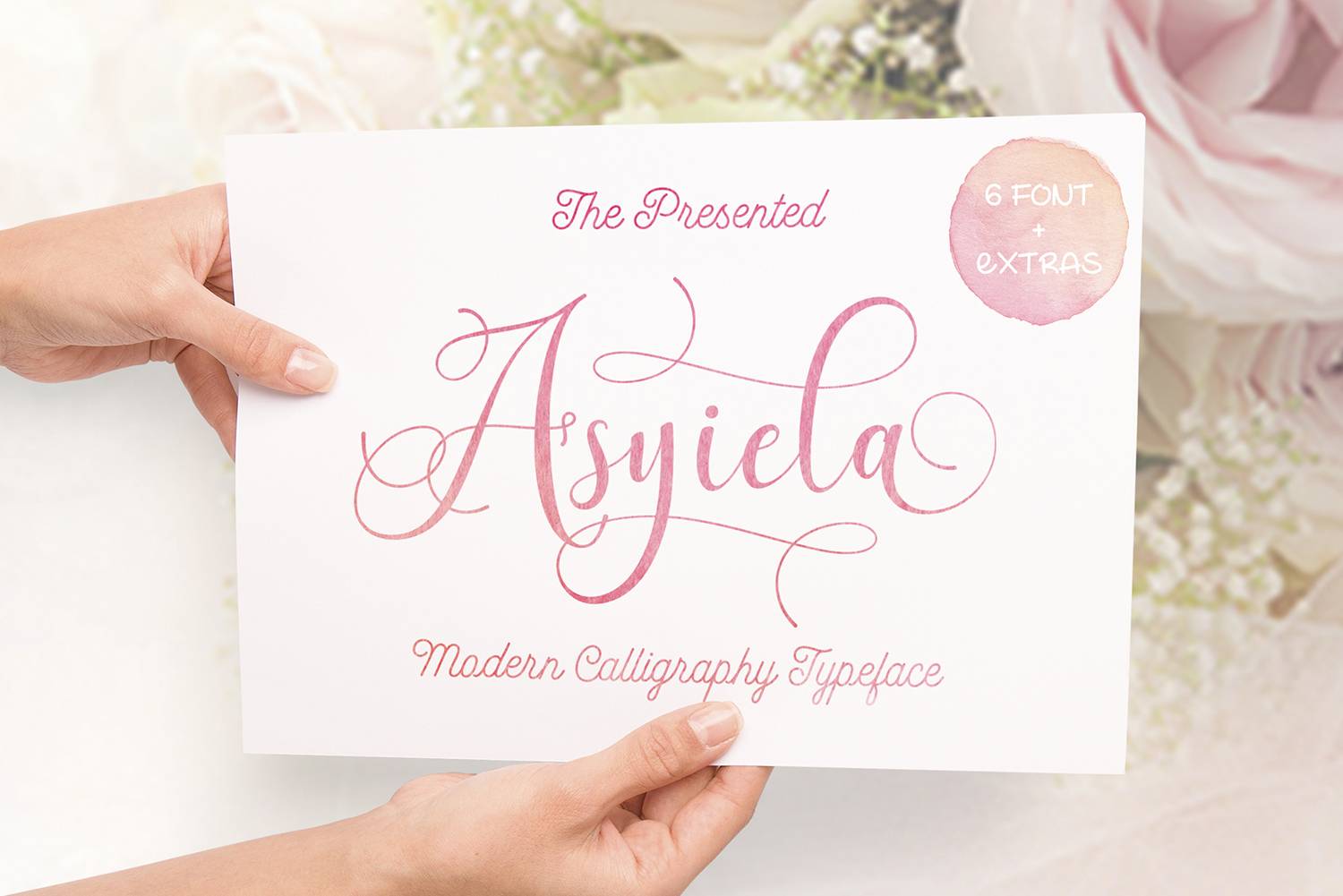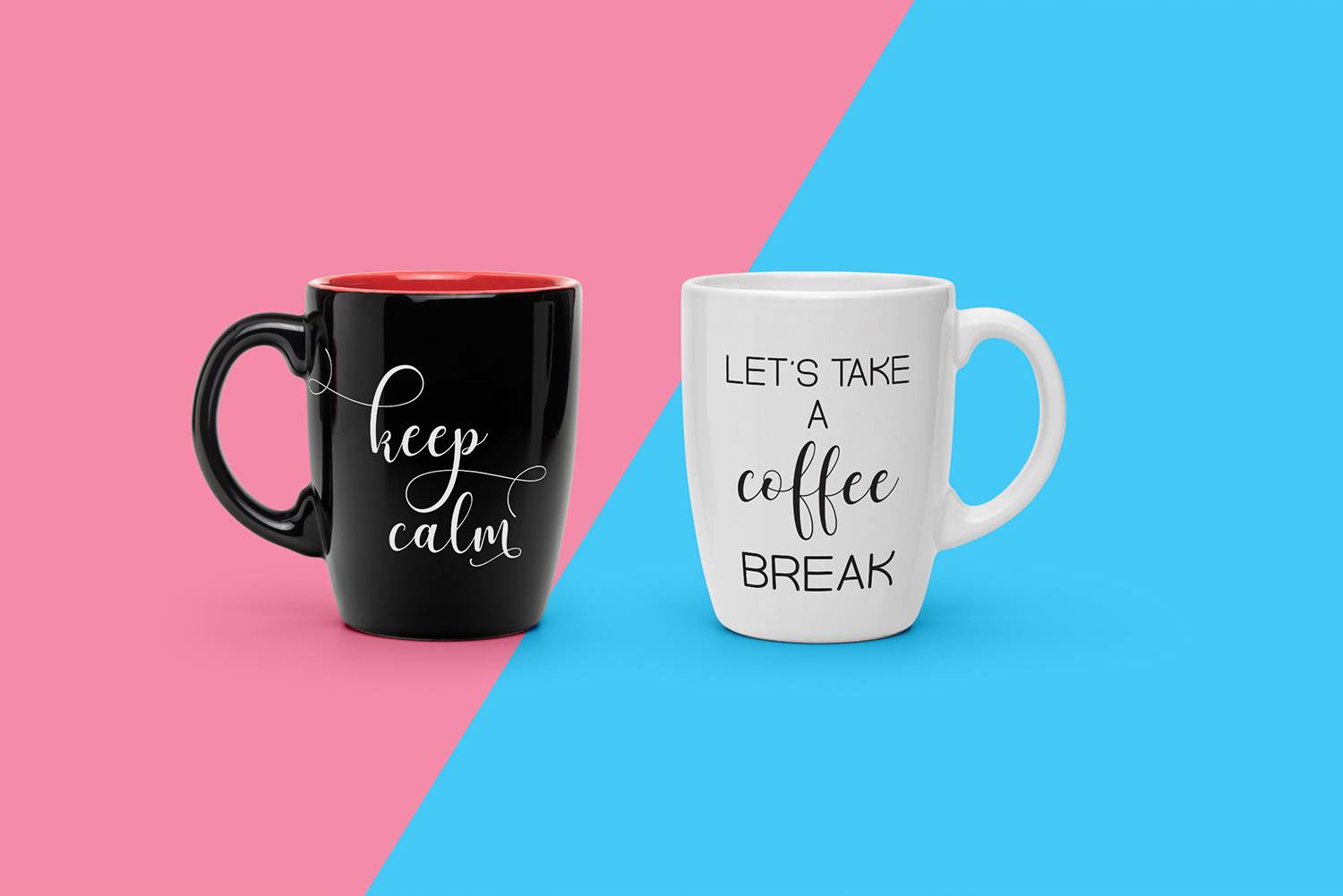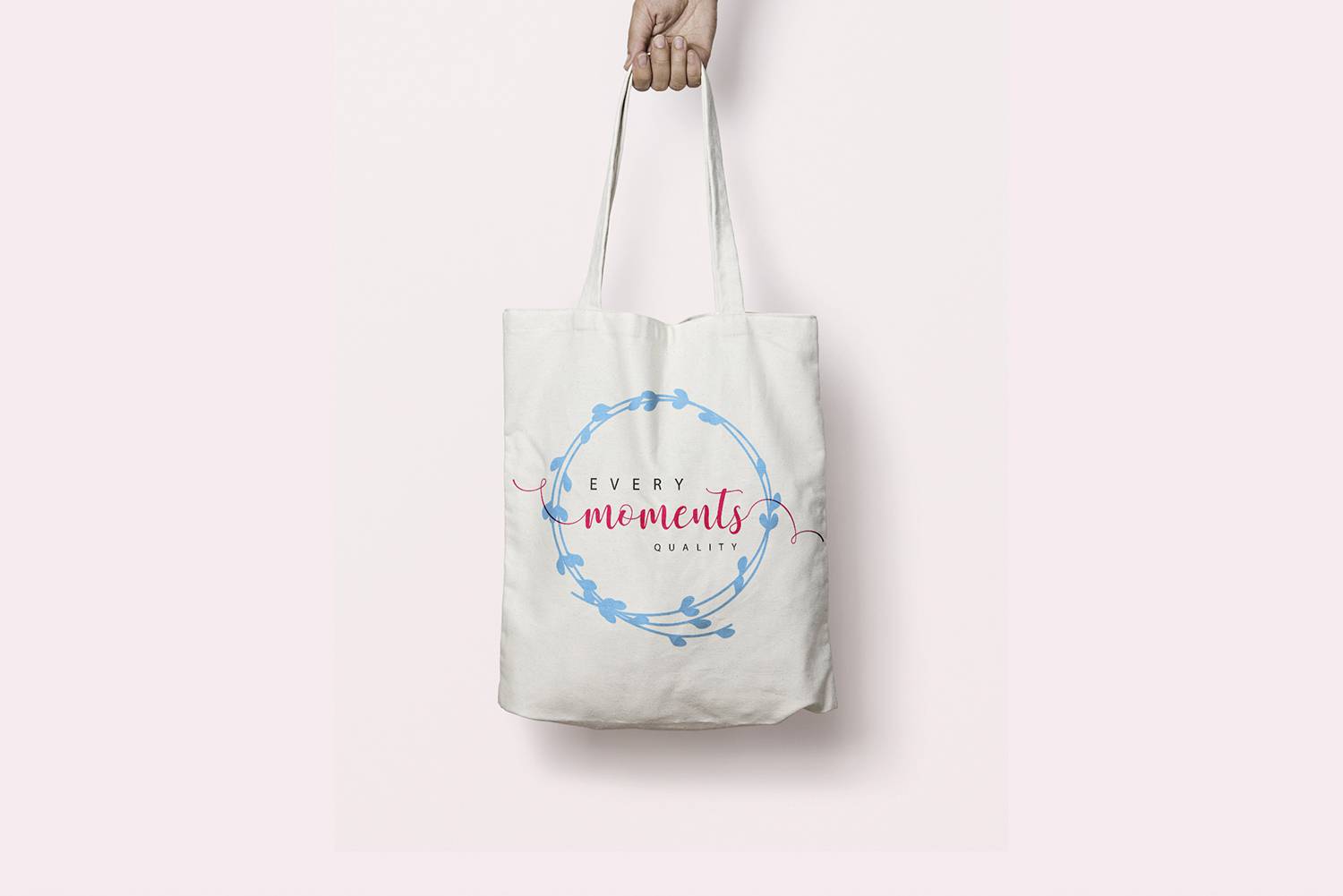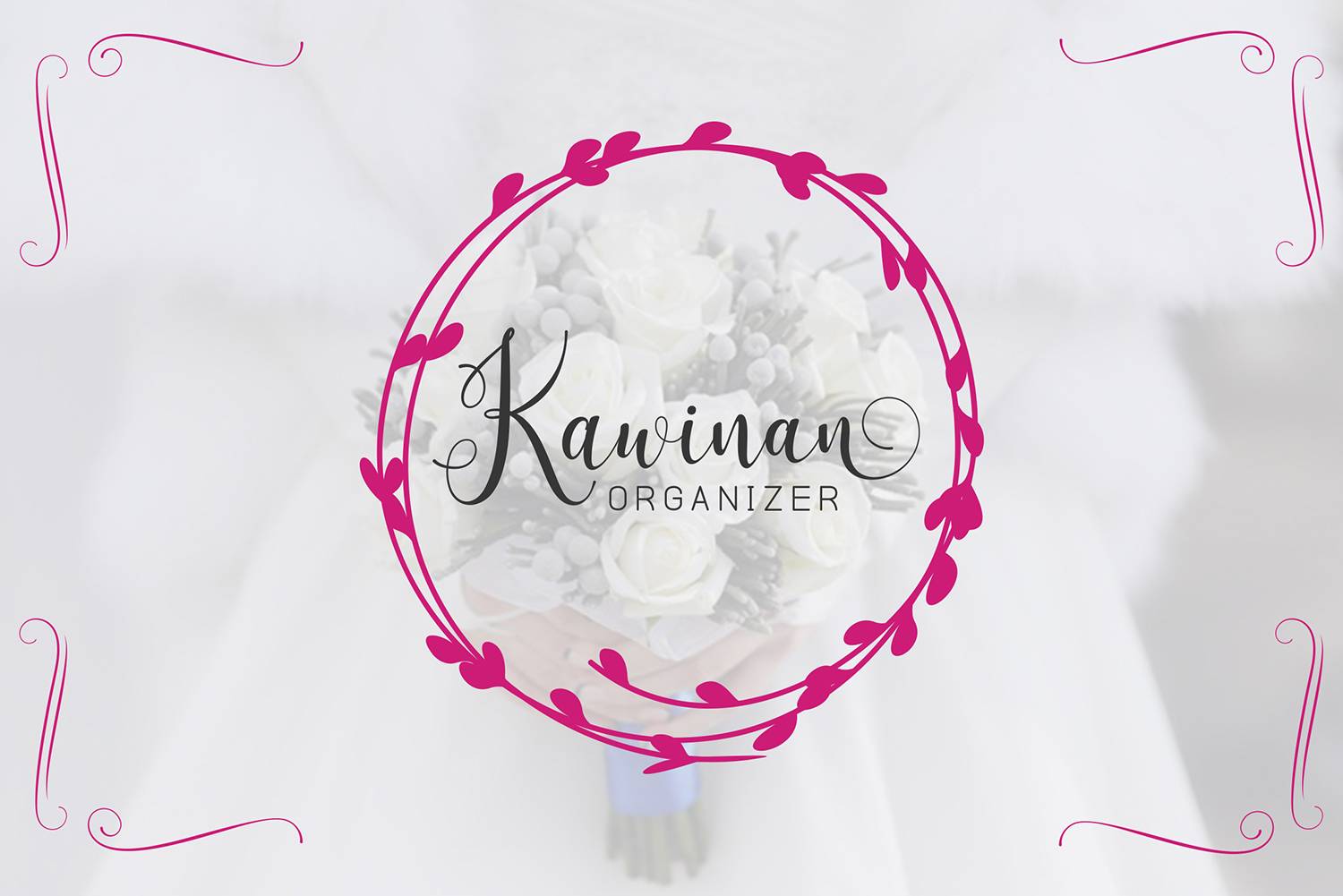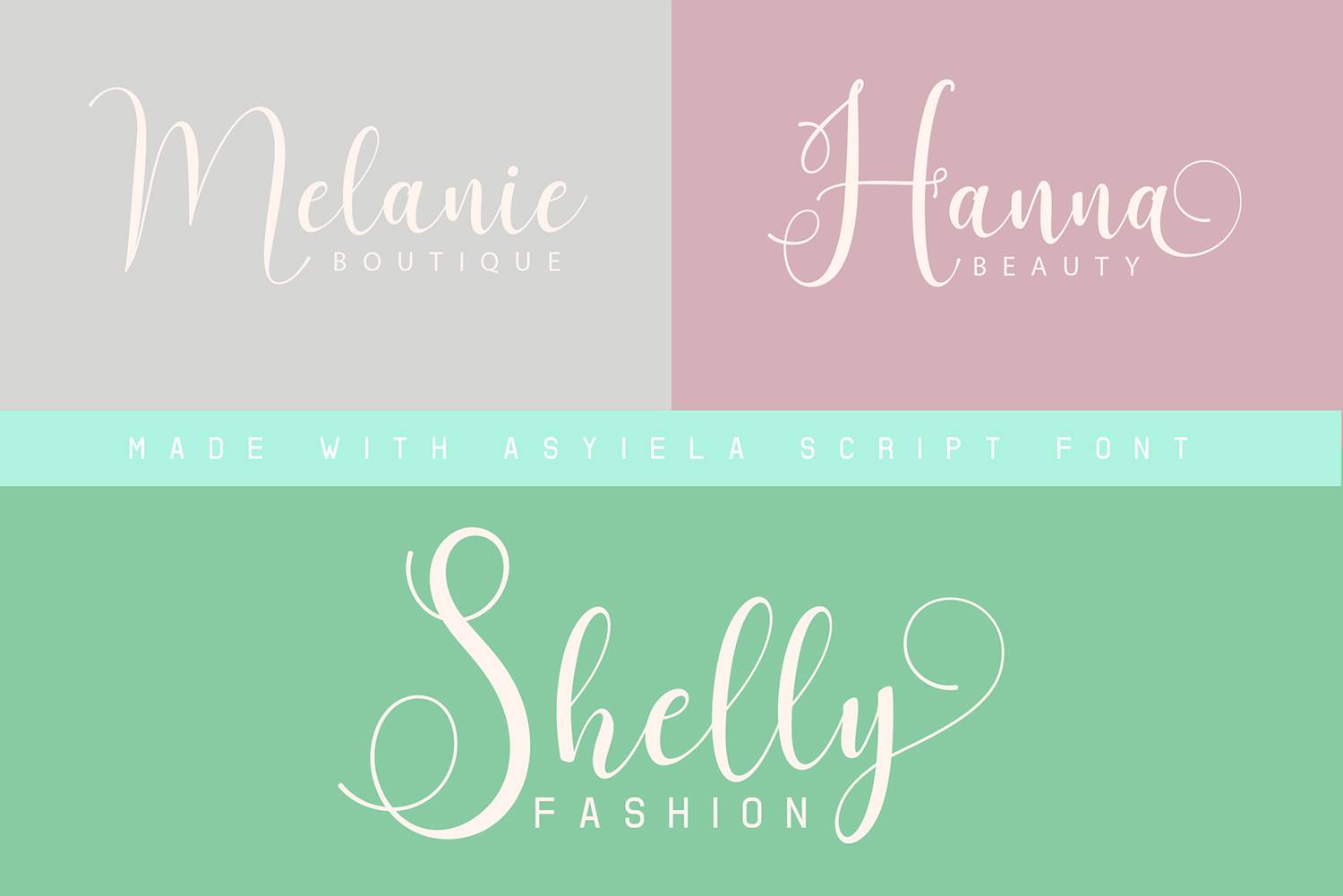
Asyiela is an elegant script font with a delicate, flowing style that combines slender strokes and graceful curves, giving it a refined yet approachable feel. Its light weight and high contrast create a sophisticated look perfect for weddings, invitations, fashion branding, and luxury packaging. This font shines in display uses such as logos and headlines, where its ornamental details can truly stand out and add a touch of elegance.
Asyiela Font
About Asyiela Font
| Font family | Asyiela Font |